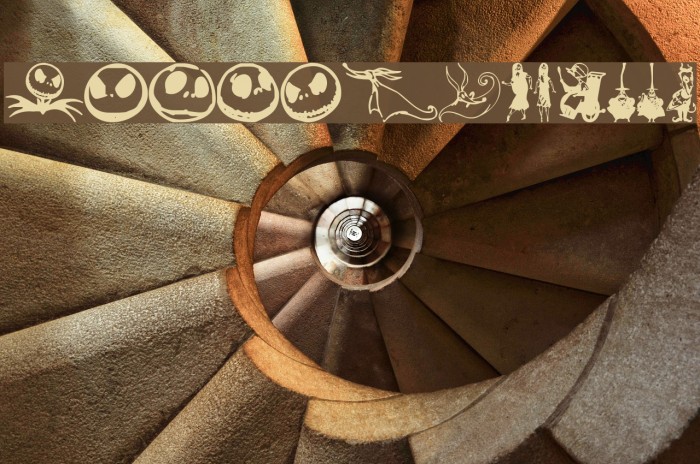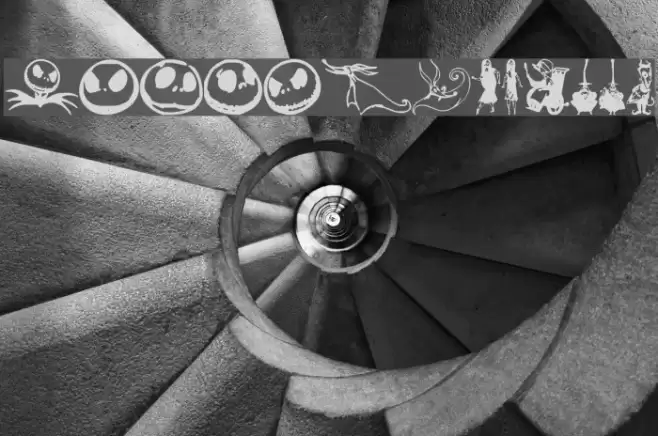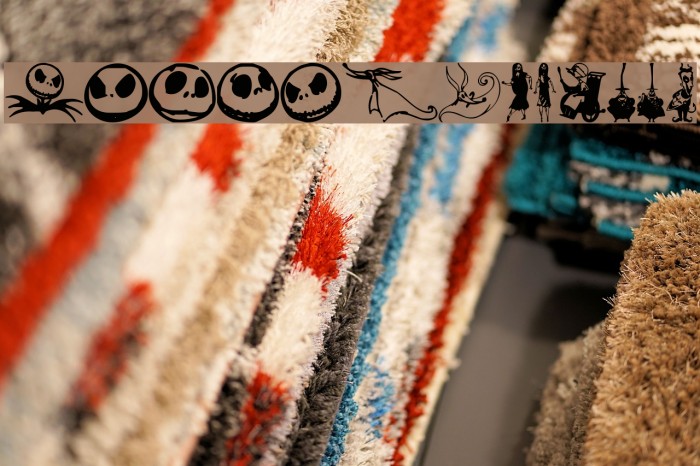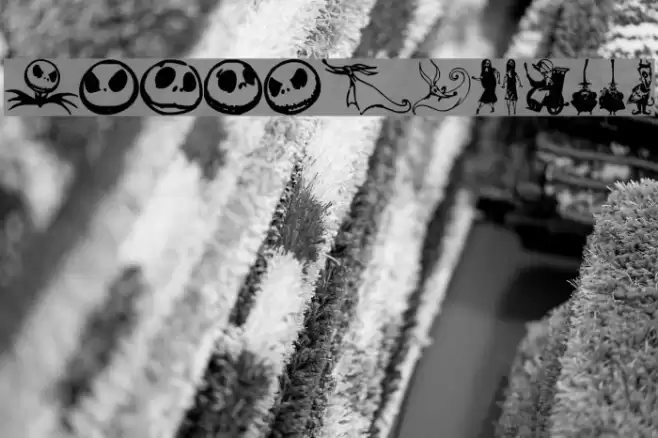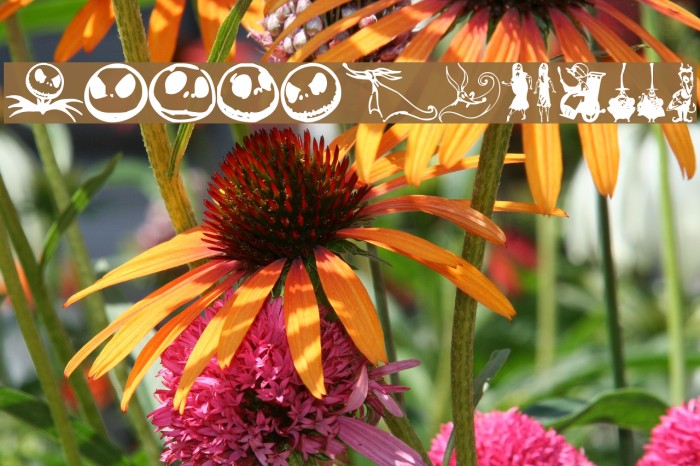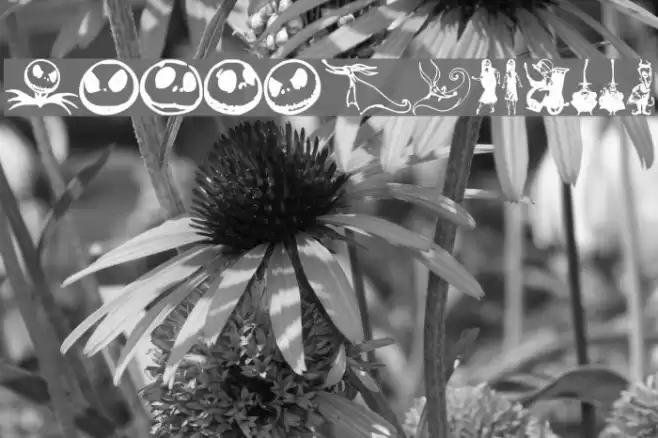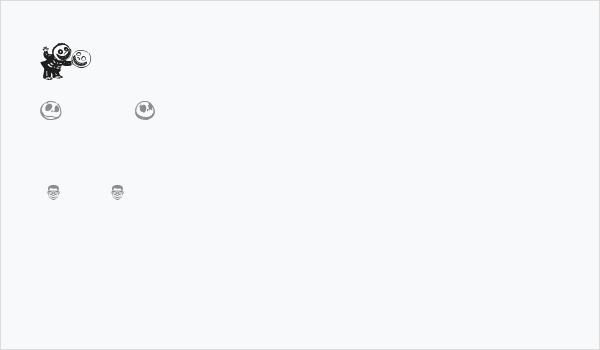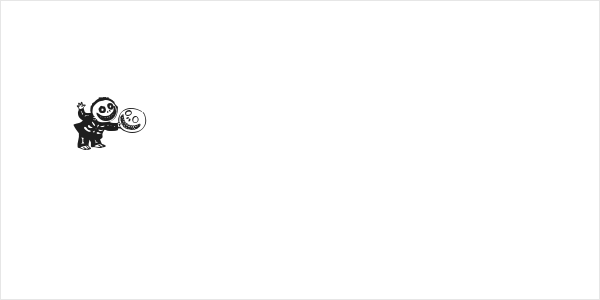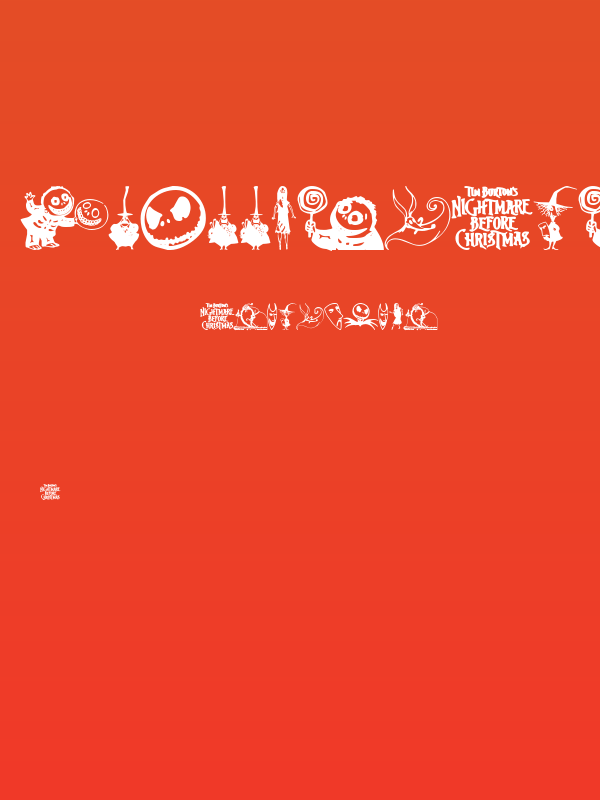
Skellingtonbats Font
Skellingtonbats Description
A decorative dingbat font featuring illustrated characters, faces, and motifs inspired by a whimsical, gothic animated film. The glyphs are highly stylized, with bold black fills and playful, cartoonish details, emphasizing expressive faces and iconic silhouettes.
| Overall Style | Decorative, Gothic, Whimsical |
| Use Case | Logos, Posters, Themed Graphics, Crafts |
| Proposed Projects | Halloween invitations, themed party decor, fan art, event posters, crafts, and scrapbooking. |